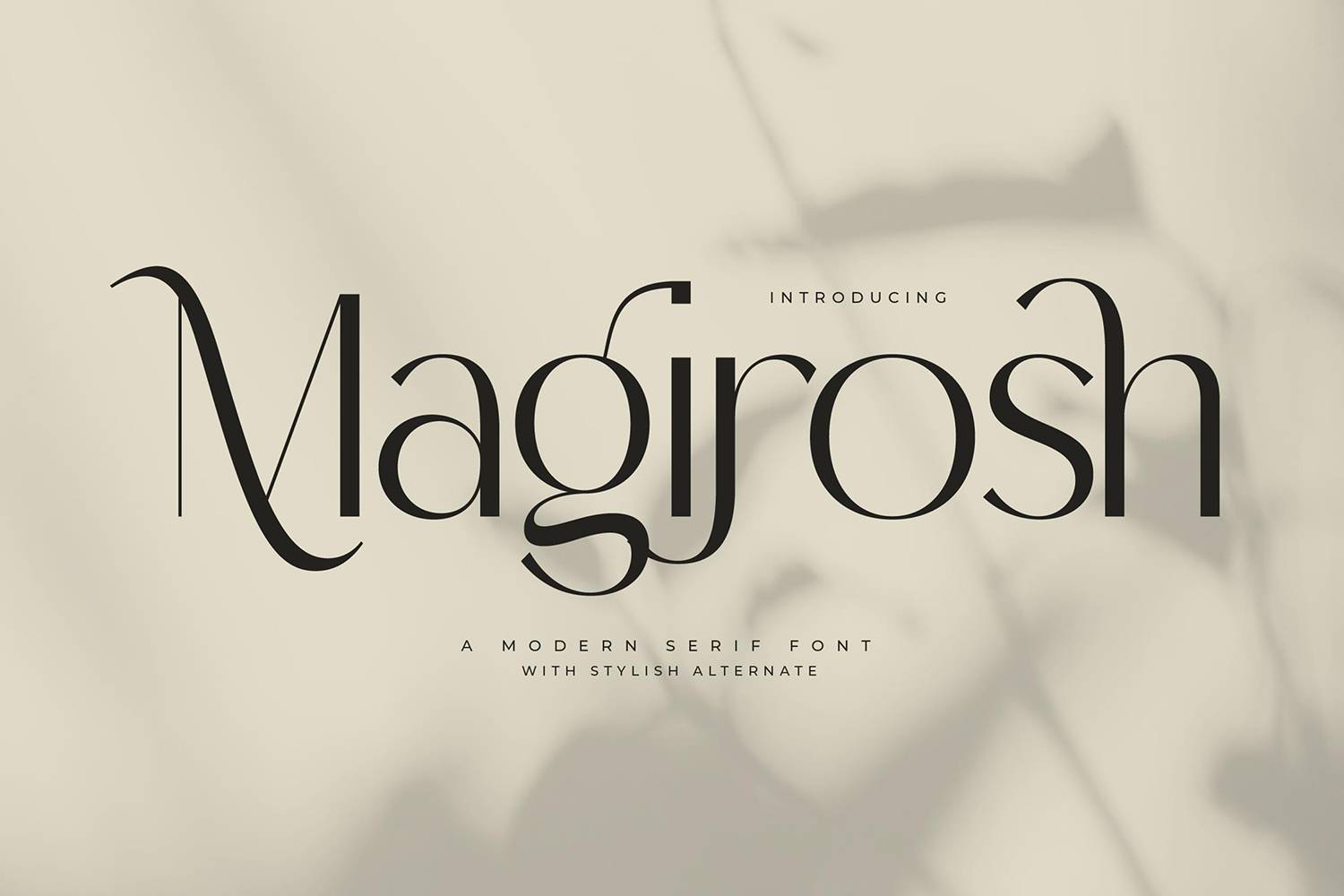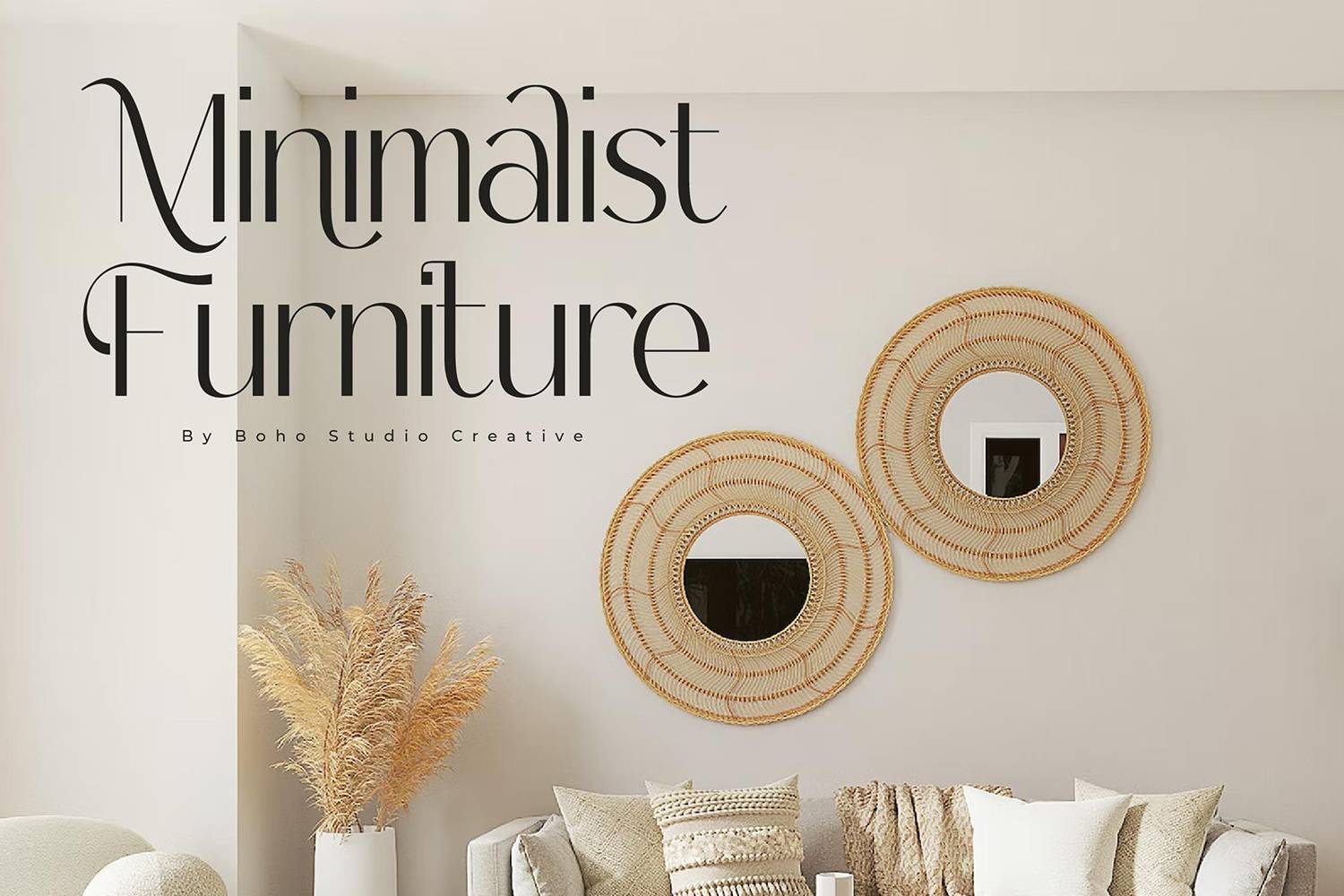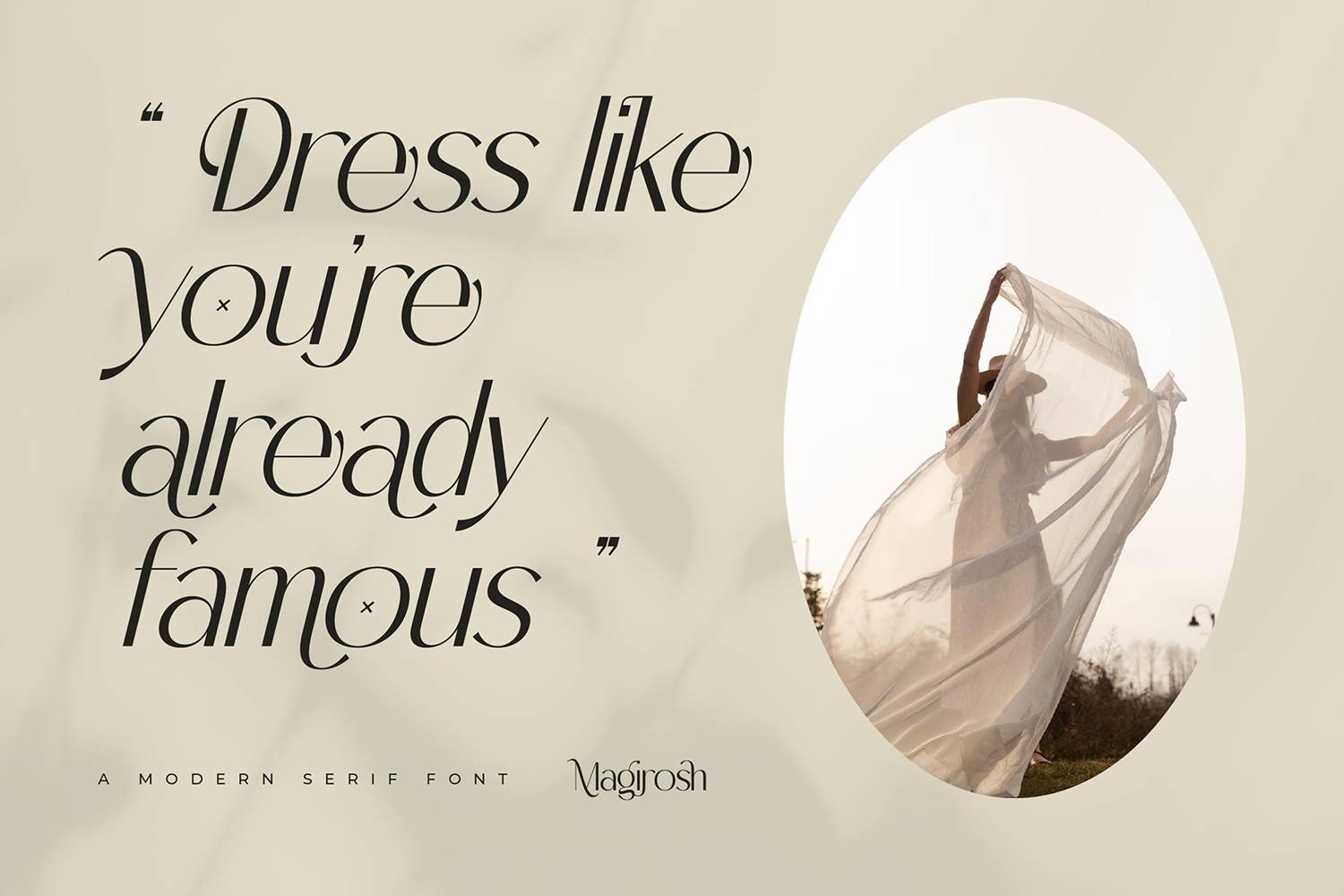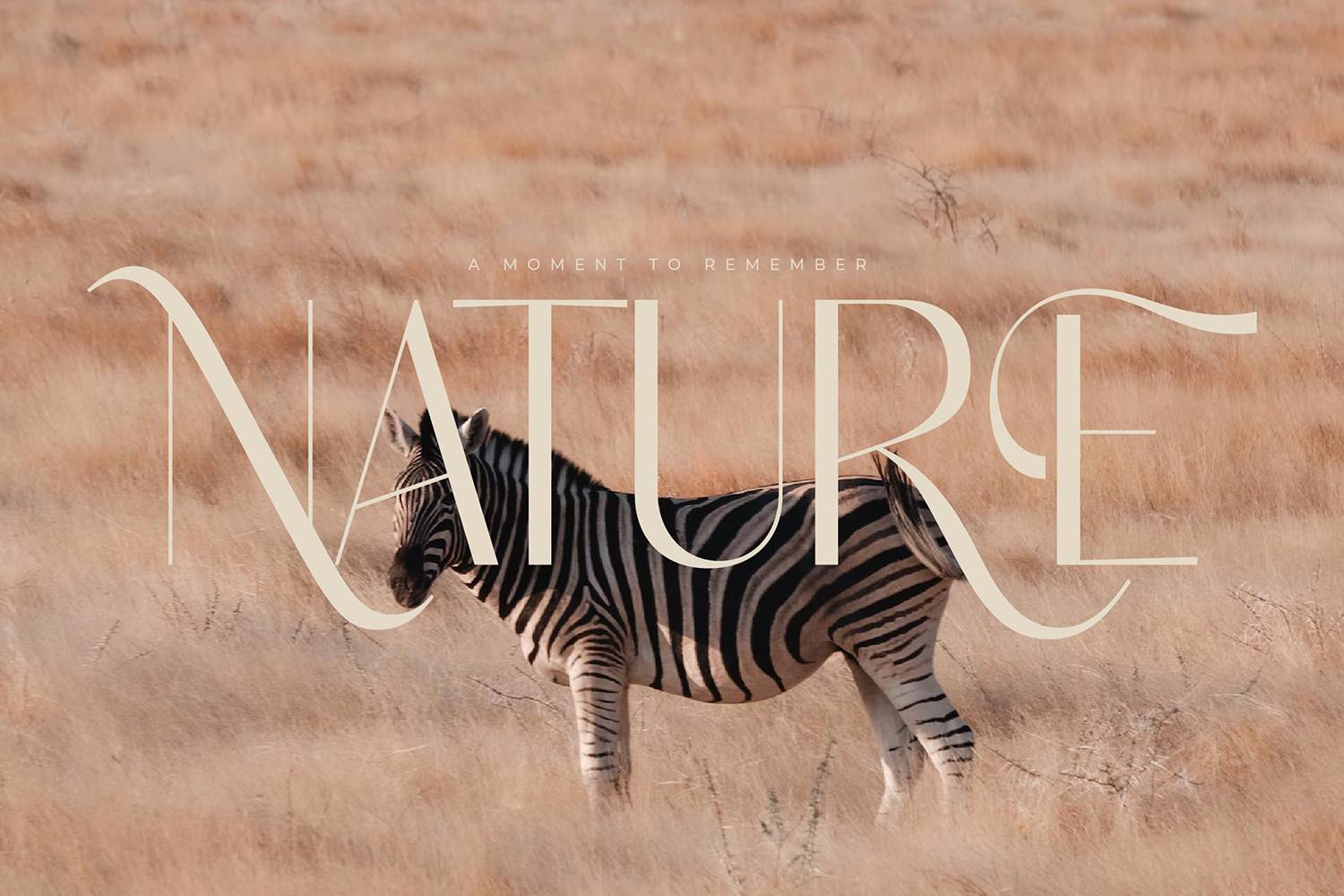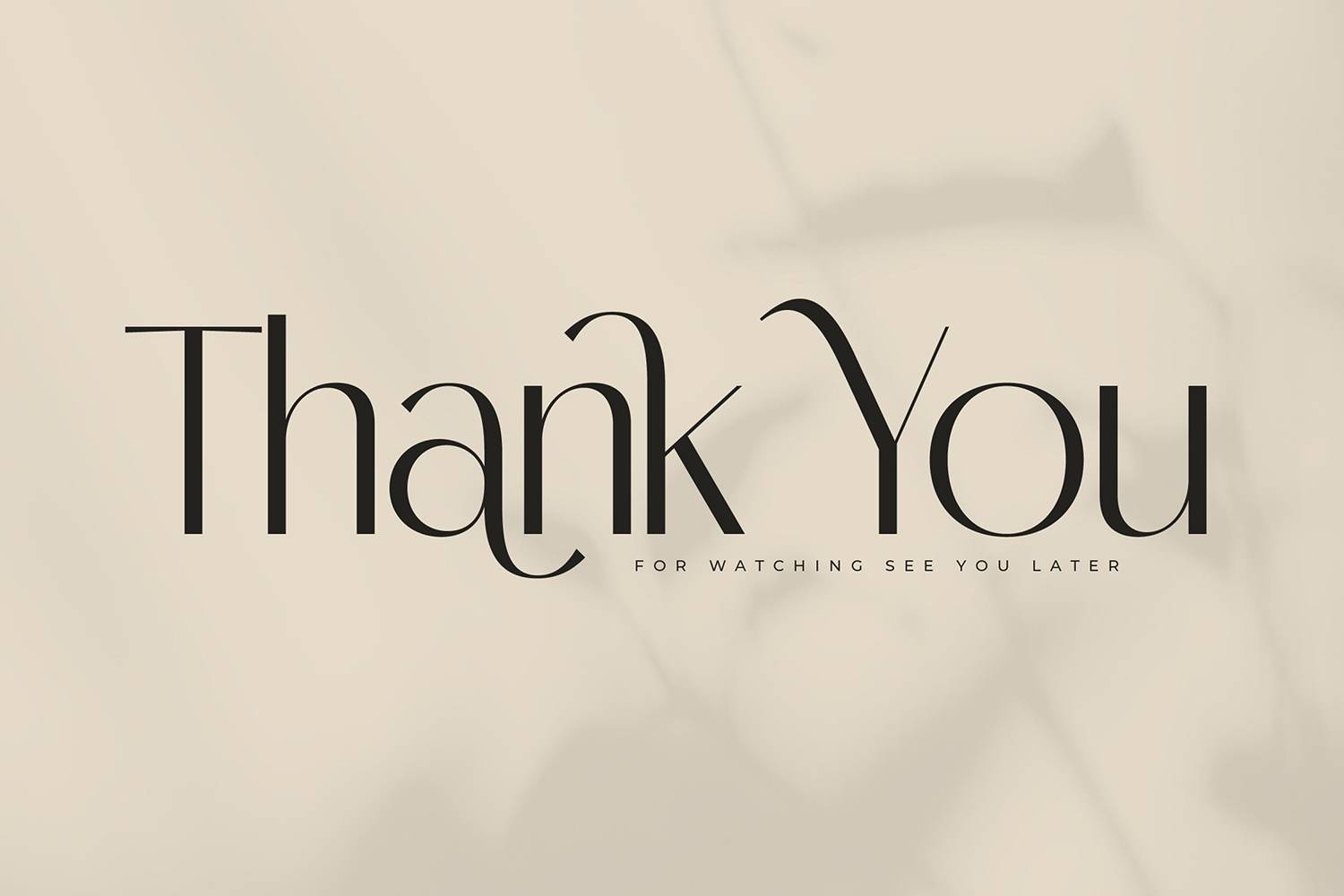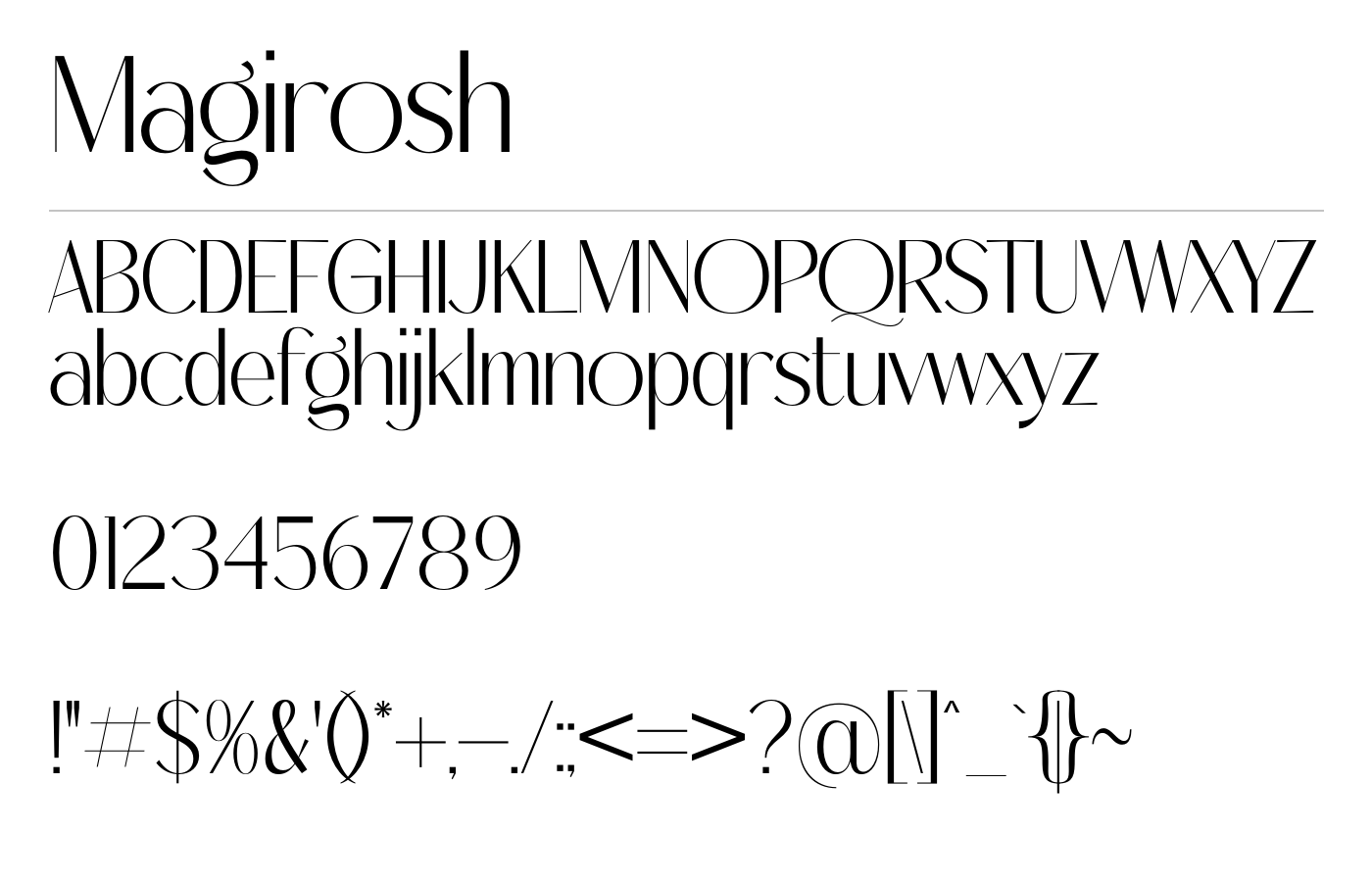
Magirosh is an elegant serif font characterized by its slender strokes and high contrast between thick and thin lines, giving it a refined and sophisticated appearance. Its tall x-height and delicate, bracketed serifs combined with unique letterforms, such as the single-story "a" and stylized "Q" tail, make it ideal for upscale branding, editorial headlines, and fashion-related designs that seek a modern yet classic feel. The light weight and airy spacing lend a graceful touch, perfect for projects where elegance and clarity are essential.
Magirosh Font
About Magirosh Font
| Font family | Magirosh Font |